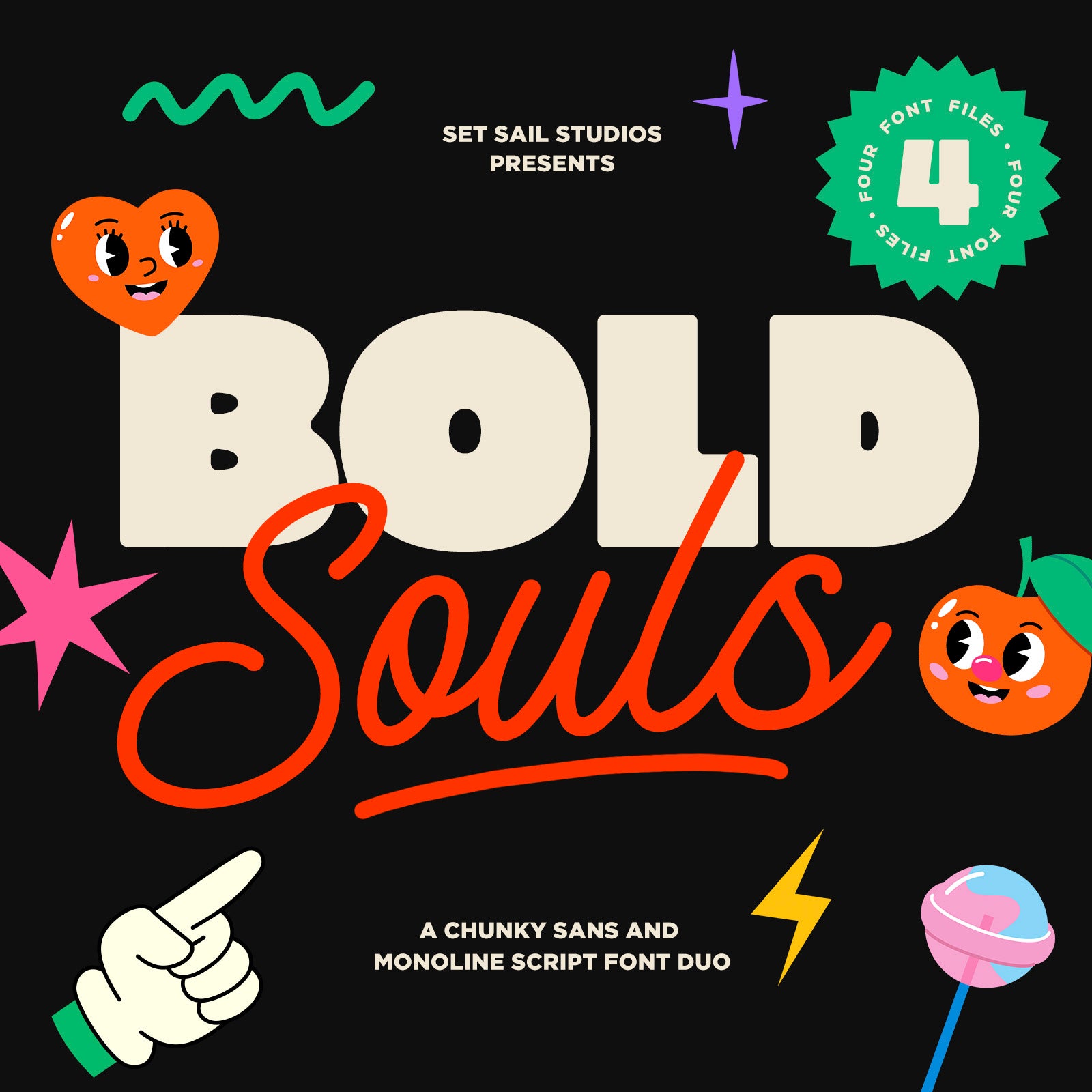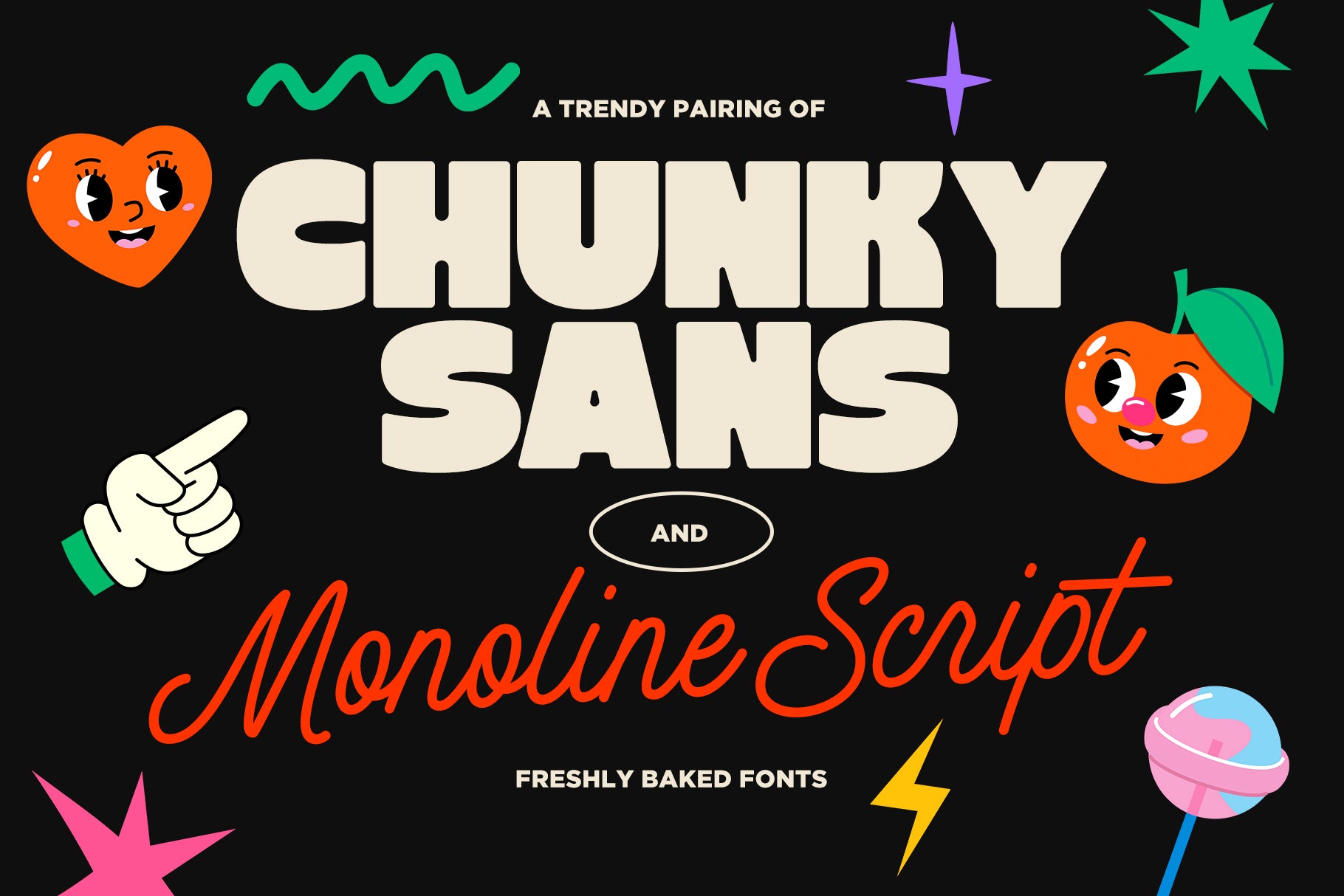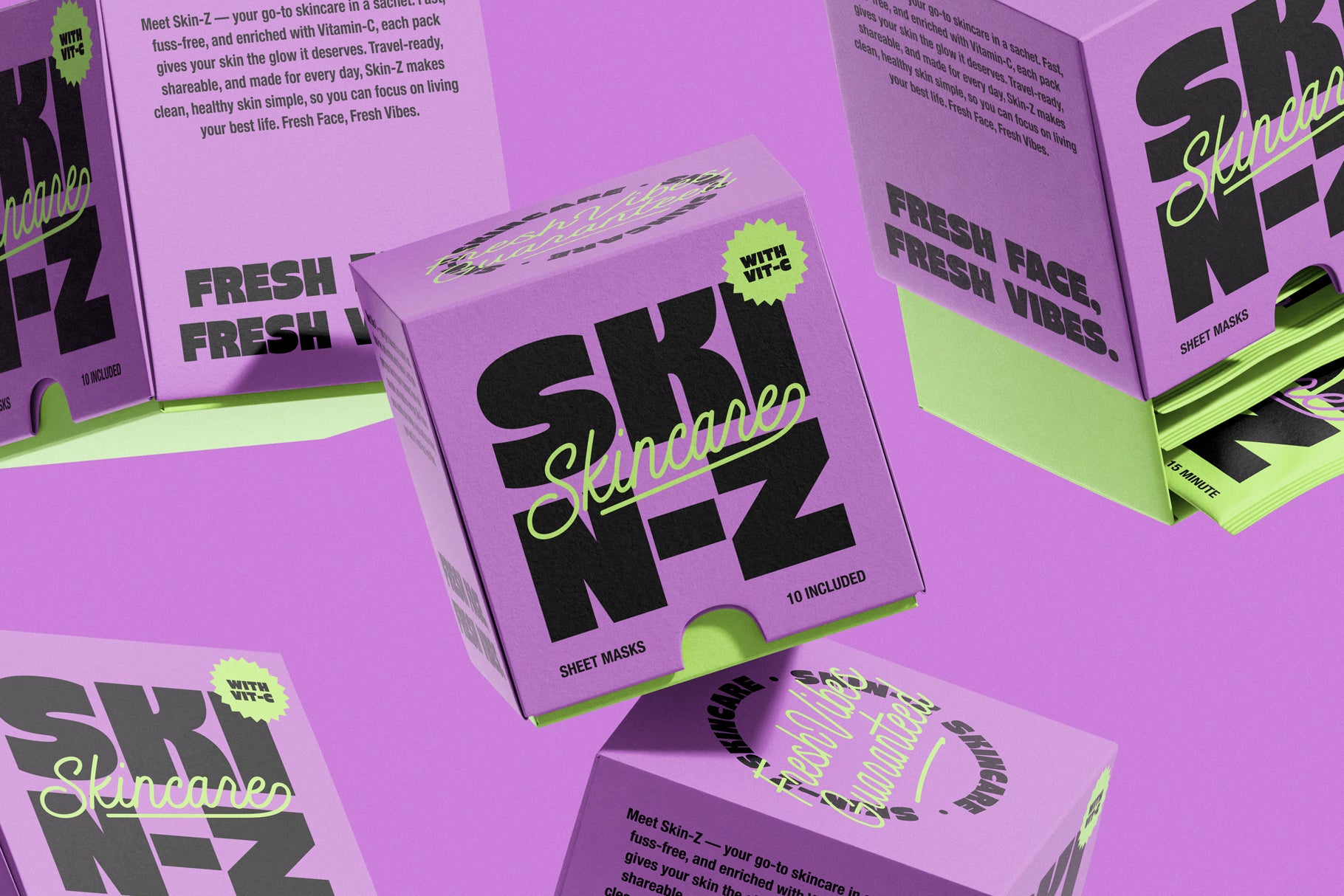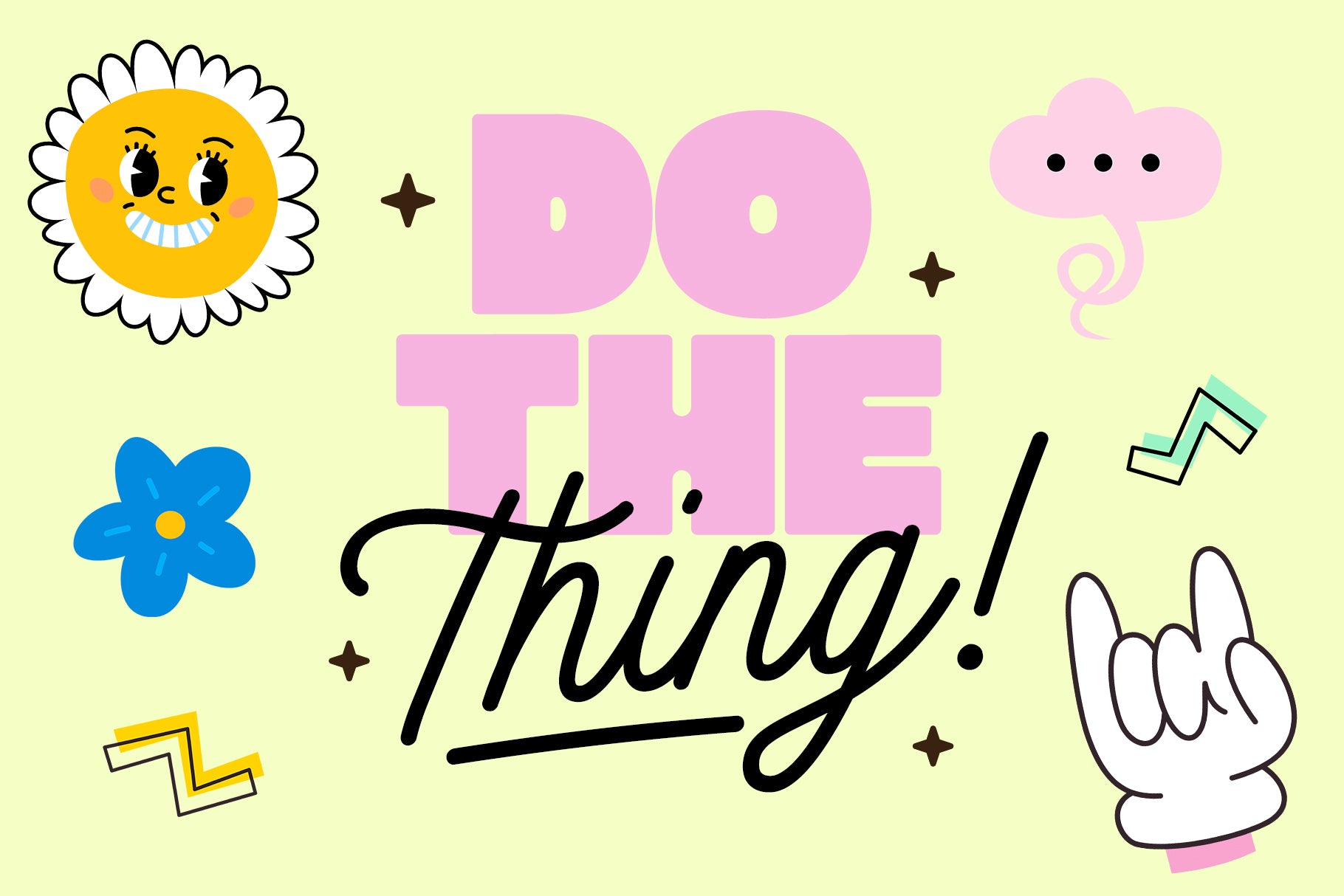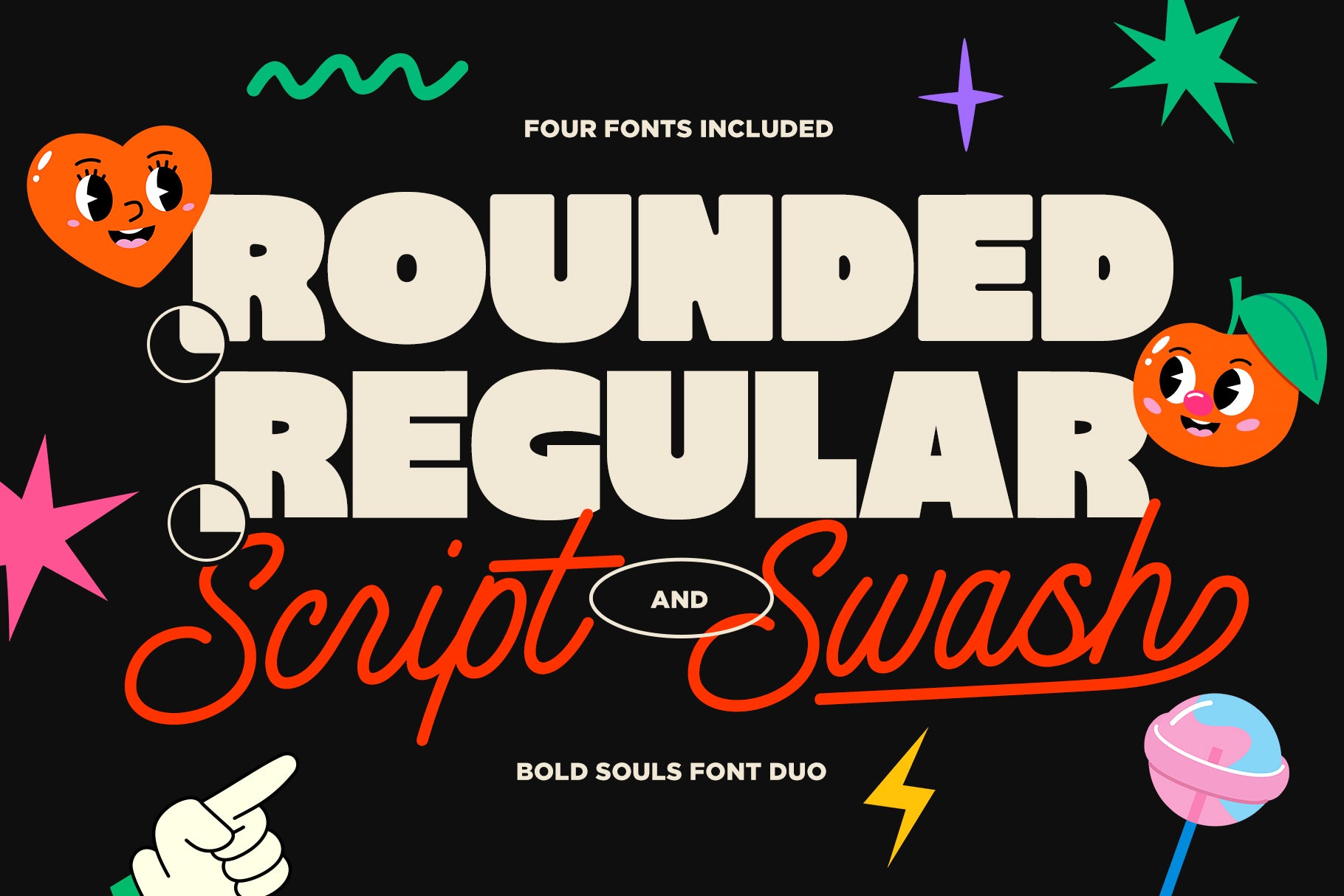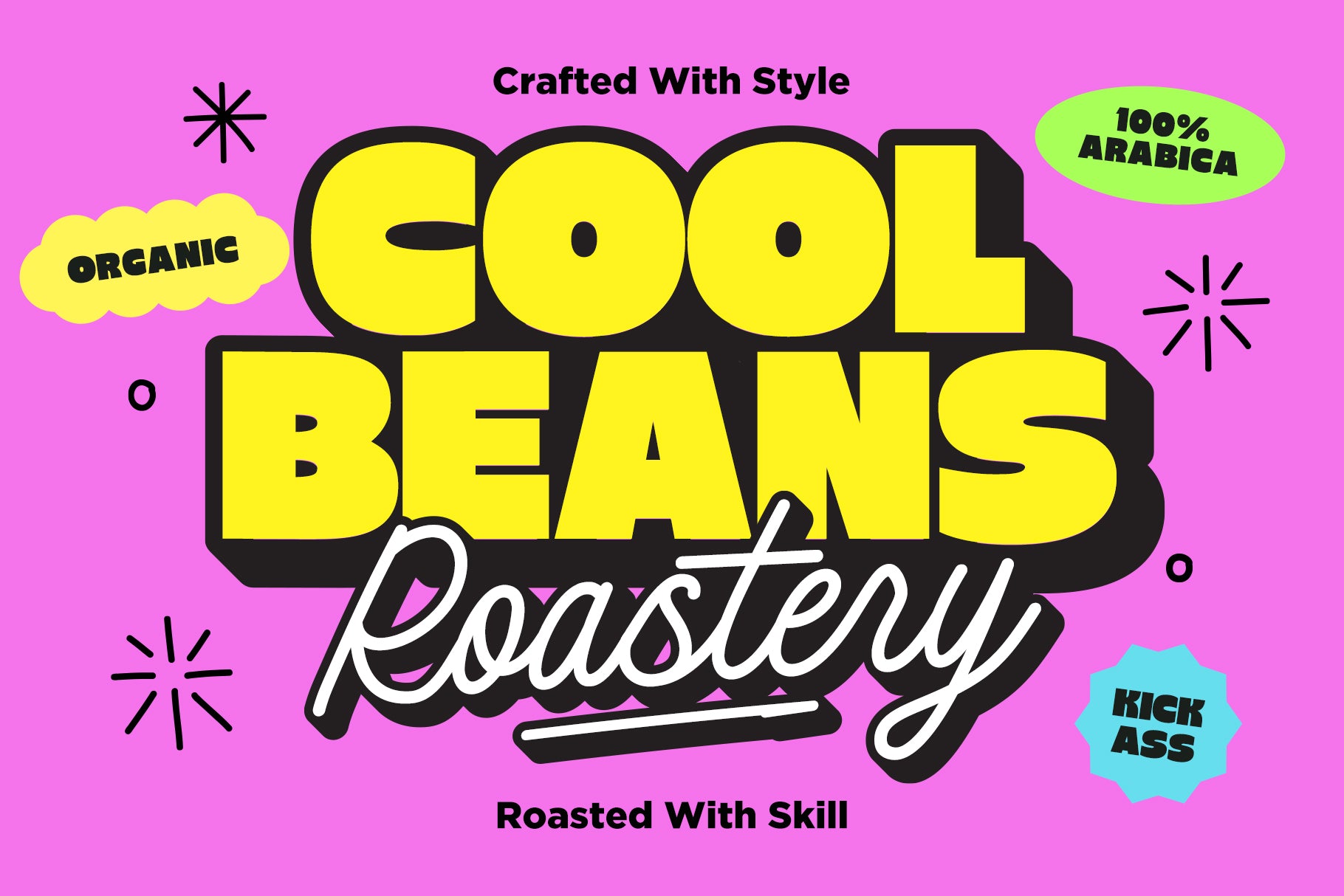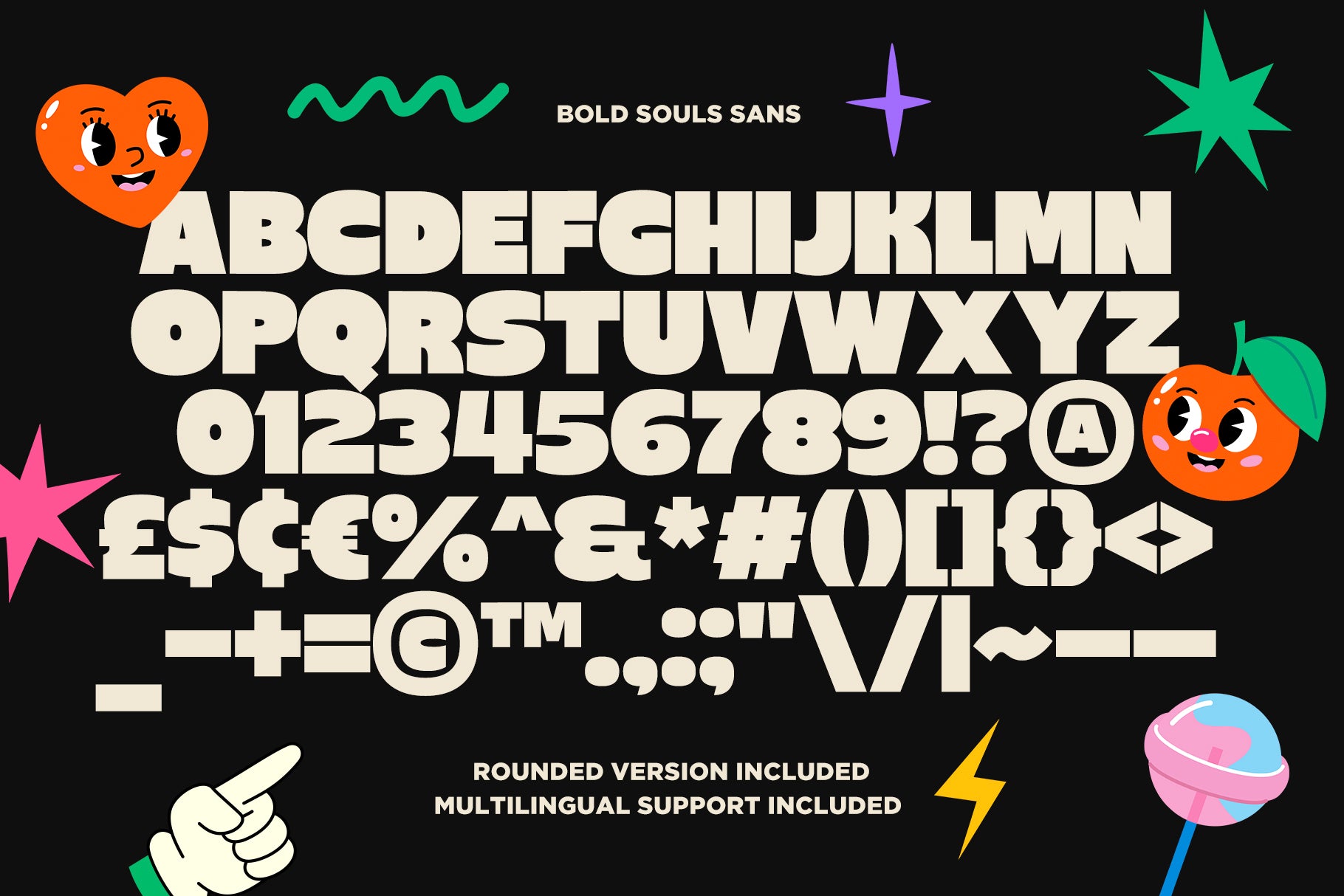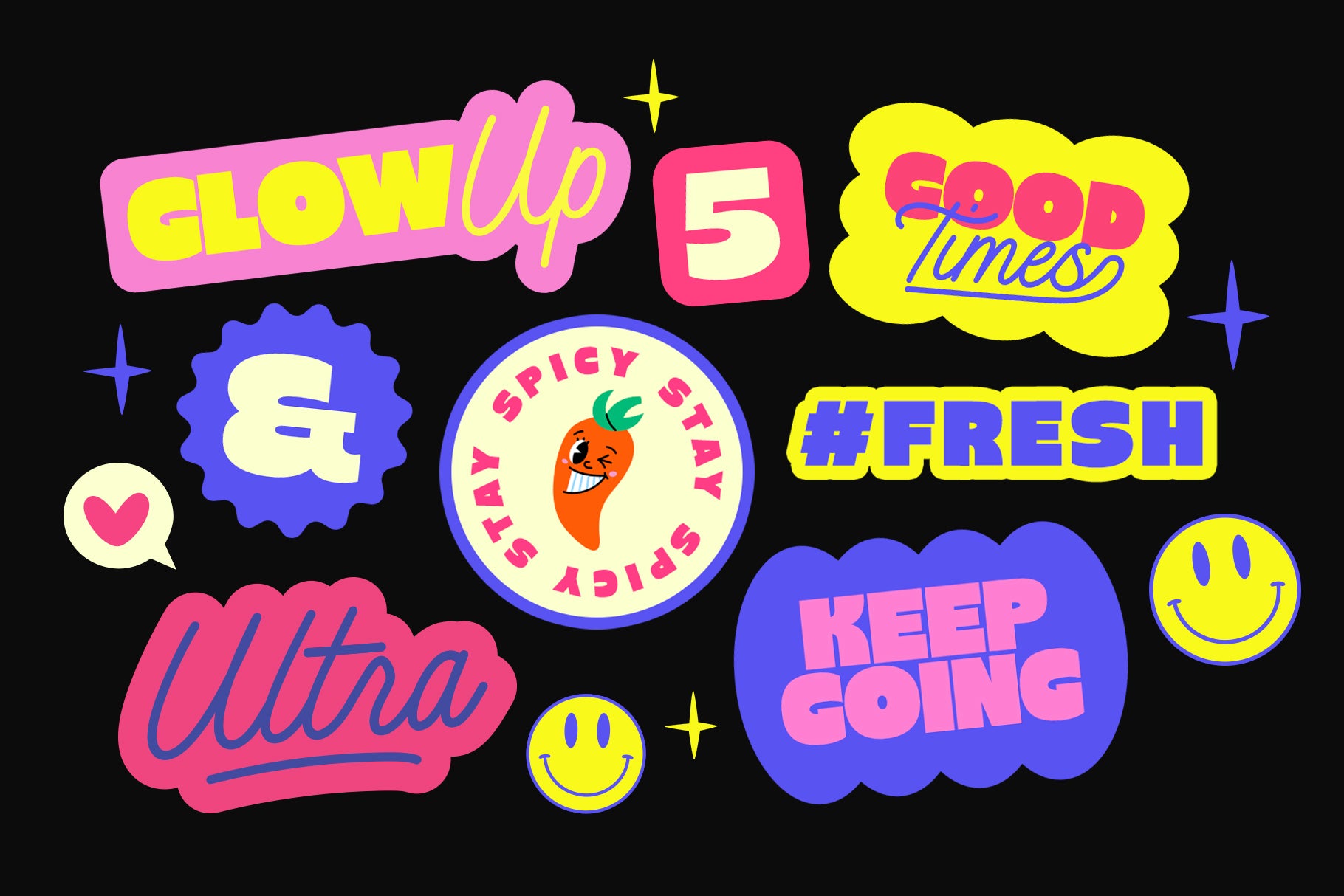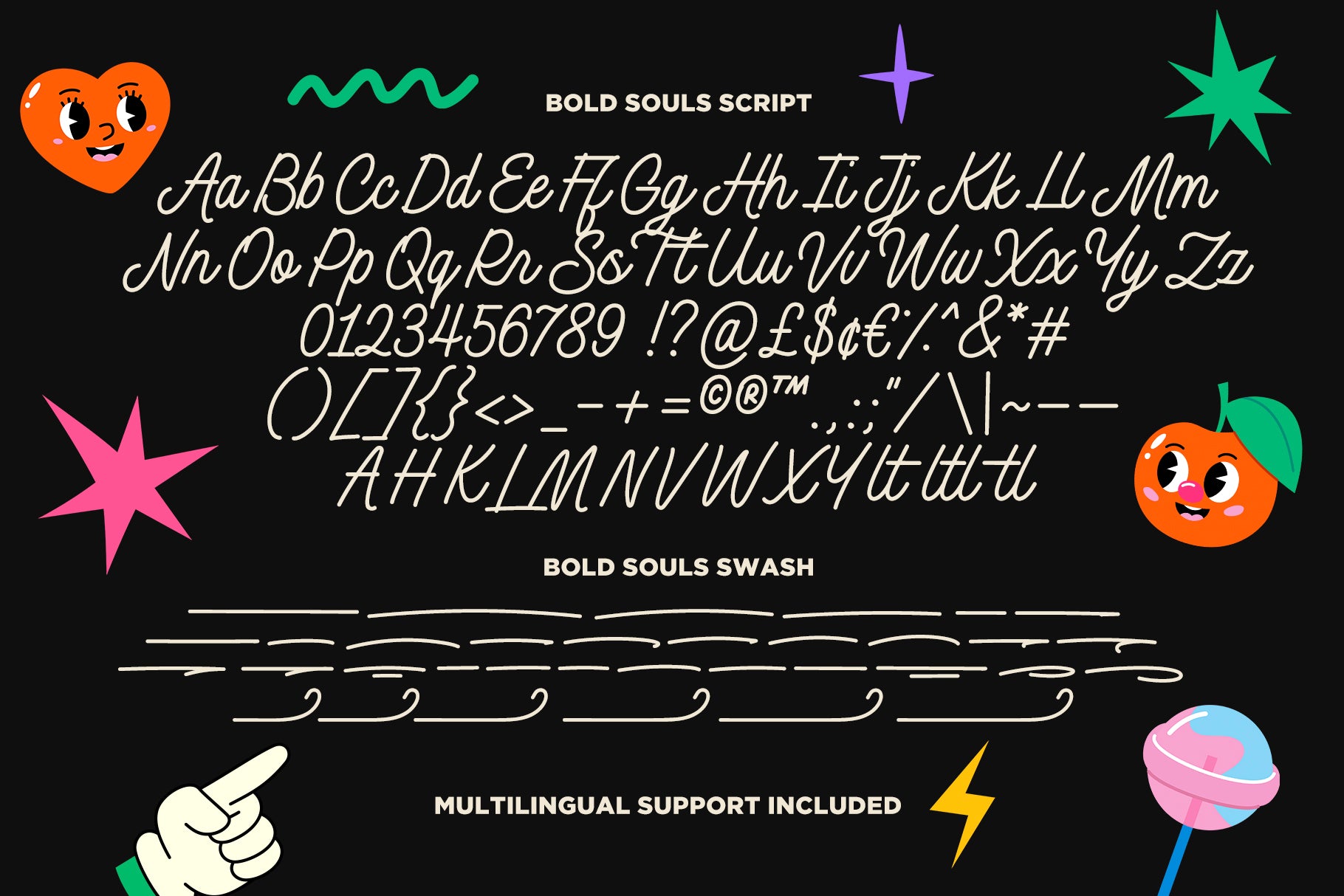
Bold Souls Font Duo
The Bold Souls Font Duo includes a Super Chunky Sans Font with sharp or rounded edges, and a Smooth Monoline Script Font featuring 35 bonus underline swashes. It offers uppercase characters, numerals, punctuation, and extensive language support, making it a versatile choice for various design needs.